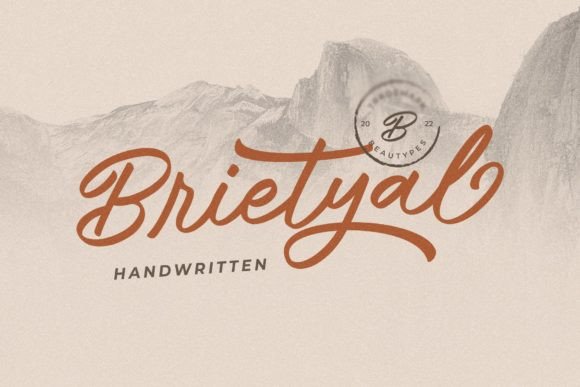
The Ultimate Guide to Brietyal Font: Unlocking Creative Possibilities
Ah, the elusive perfect font. You know, that one moment when you’re working on a design project, and everything is coming together beautifully, but the font just isn’t right. I recall a particularly frustrating experience when I was designing a wedding invitation suite for a client. I had the layout, the colors, and the overall aesthetic nailed, but the font I was using just didn’t have that special something. That’s when I stumbled upon Brietyal Font, and it completely transformed my design.
An Honest Review of Brietyal Font
So, what makes Brietyal Font so special? Let’s dive into the good stuff!
- ✨ Fresh and Unique: Brietyal Font boasts a fresh and unique script style that’s sure to make your designs stand out.
- ✅ Handwritten Look: Its handwritten appearance adds a touch of warmth and personality to any design.
- ✅ Versatility: This font is perfect for a wide range of applications, including logos, stationery, posters, apparel, branding, advertisements, product packaging, product designs, labels, wedding invitations, and more!
Now, no font is perfect, and Brietyal Font has a few minor quirks:
- 🤔 Limited Use on Small Sizes: Due to its intricate design, Brietyal Font may not be the best choice for very small font sizes or low-resolution applications.
- ⚠️ Glyph Overload: With so many glyphs and swashes available, it’s easy to get overwhelmed. Take some time to explore the font and plan your design carefully.
The Story Behind Brietyal Font
While the exact backstory of Brietyal Font is unknown, it’s clear that the designer aimed to create a unique and versatile script font. The result is a beautiful, handwritten font that’s perfect for a wide range of creative projects. Whether you’re a professional designer or a crafty hobbyist, Brietyal Font is sure to inspire your next design.
| Font Name | Brietyal Font |
| Author | Beautypes |
| What is Brietyal Font best used for? | Brietyal Font is perfect for logos, stationery, posters, apparel, branding, advertisements, product packaging, product designs, labels, wedding invitations, and more! |
| Is Brietyal Font suitable for body text? | While Brietyal Font is beautiful, it’s best suited for headlines and titles. Its intricate design may not be ideal for large blocks of body text. |